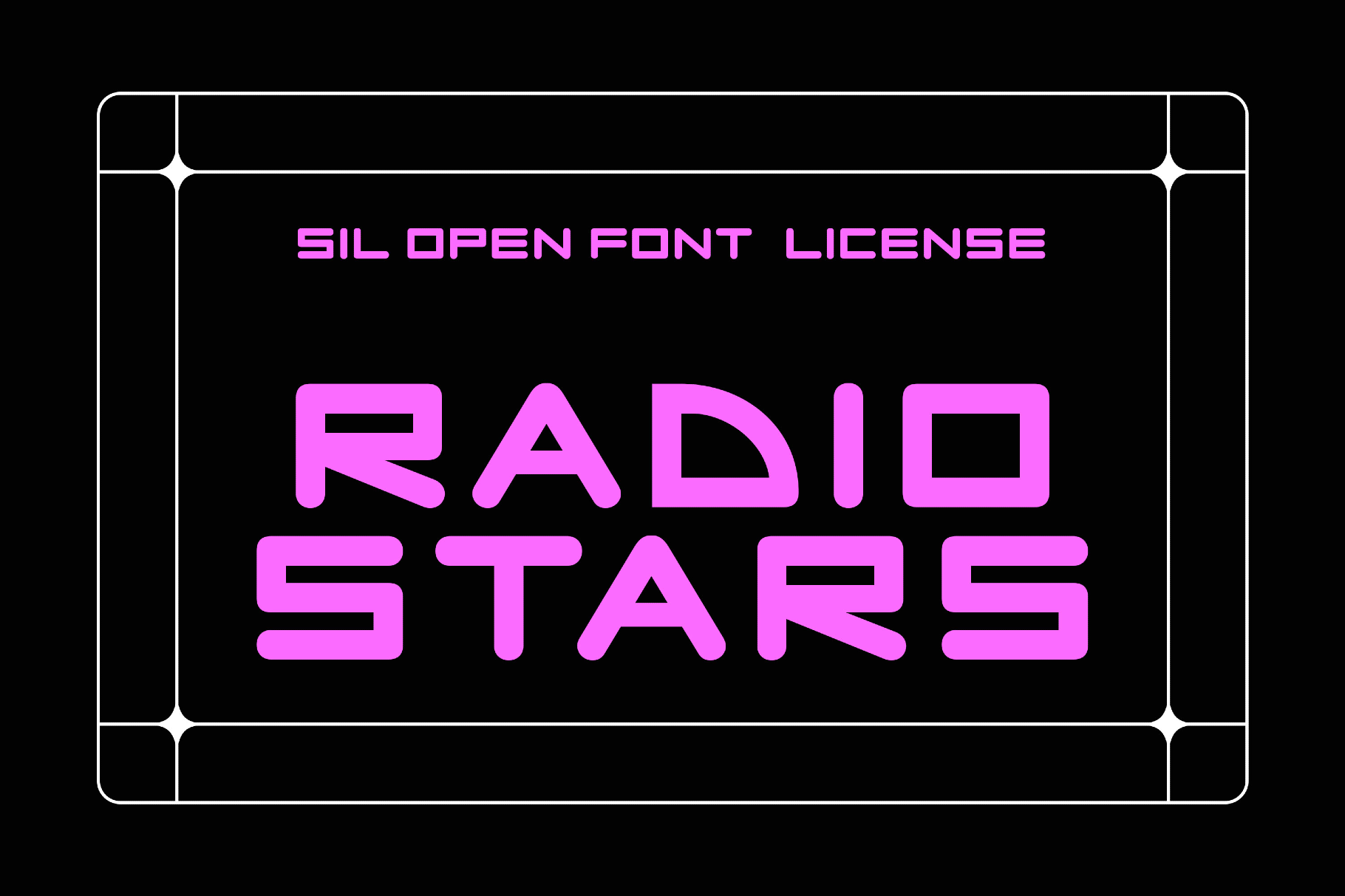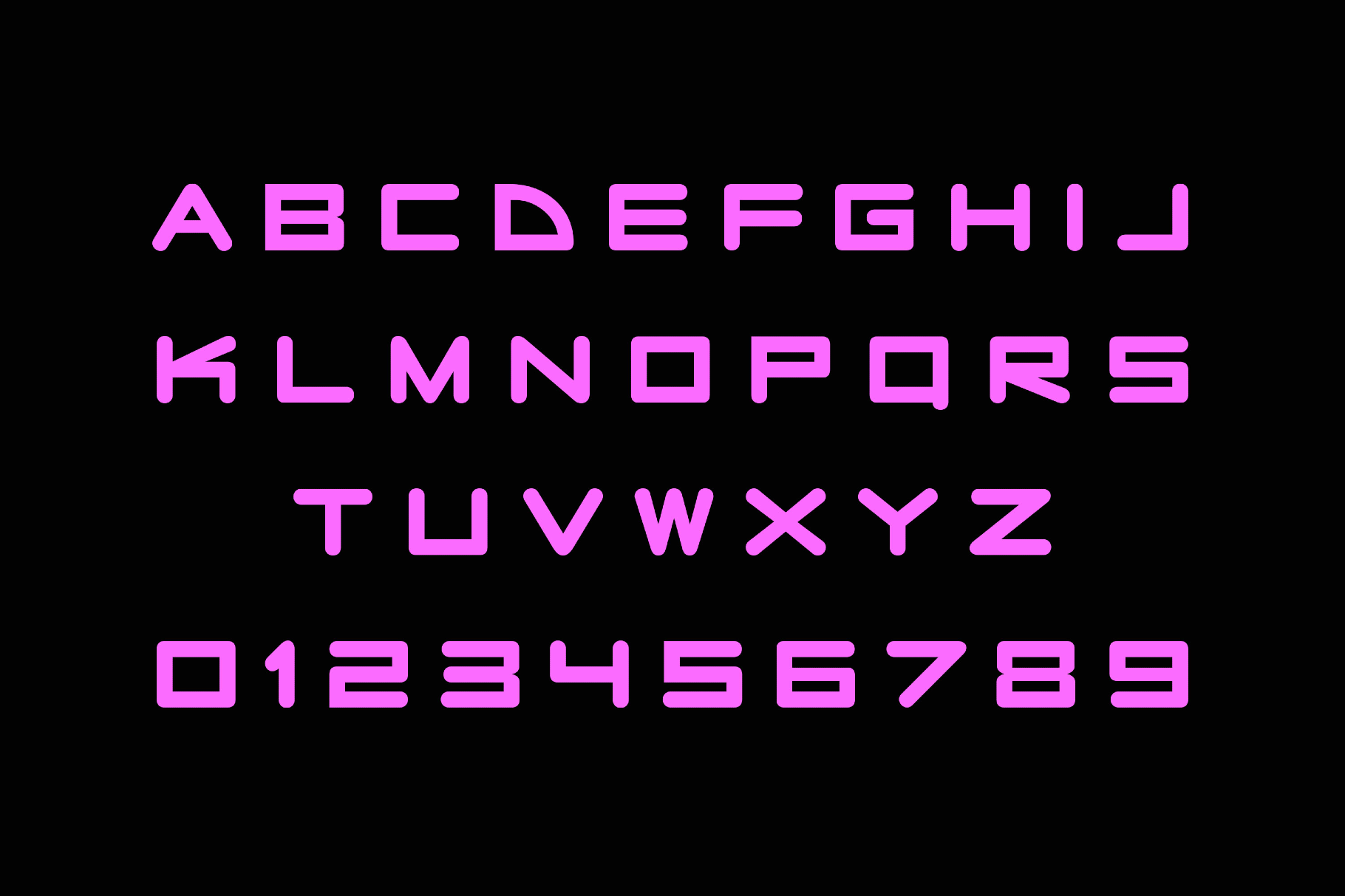
Radio Stars Font
Radio Stars
A rounded geometry of Radio Stars gives the letters a smooth, polished shape. At the same time, the brushed rhythm adds that flickering you’d expect from an old arcade marquee or a radio station run entirely by very stylish aliens.
It is a perfect choice for projects that need color, motion, and a bit of cosmic drama: poster headlines, music artwork, game screens, streaming graphics, event branding, album covers, title cards, club visuals, brand marks, motion frames, packaging, and editorial covers.
- uppercase letters;
- numbers, punctuation, and symbols;
- multilingual support across an extended Latin script;
- ligatures.